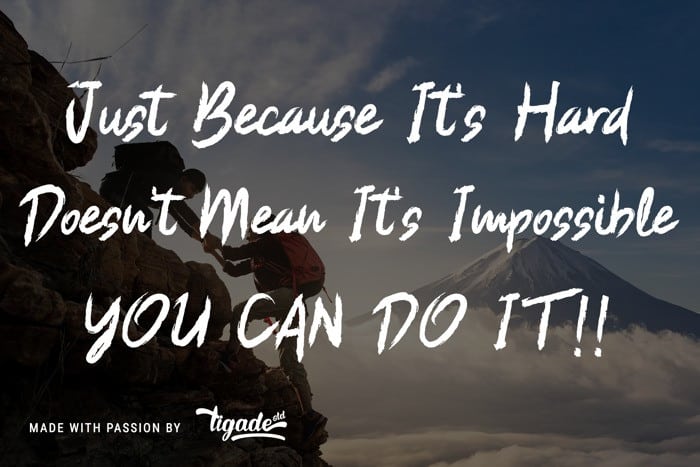
Shaker Rocker Brush Font is a handcrafted typeface inspired by wood, trees and scratchy textures. Made from font designer named Tigade Std. It’s a brush-display font crafted by hand, inspired by rough and modern posters. This is the perfect font to use in you next designs. Applications can range from t-shirts, posters, logos to anything you can think of.